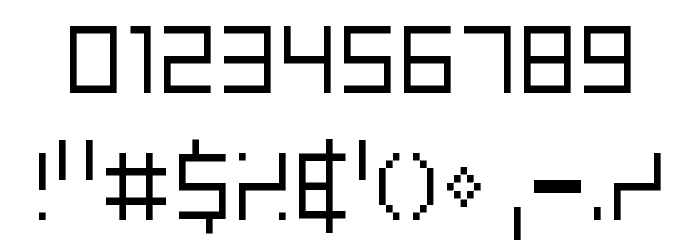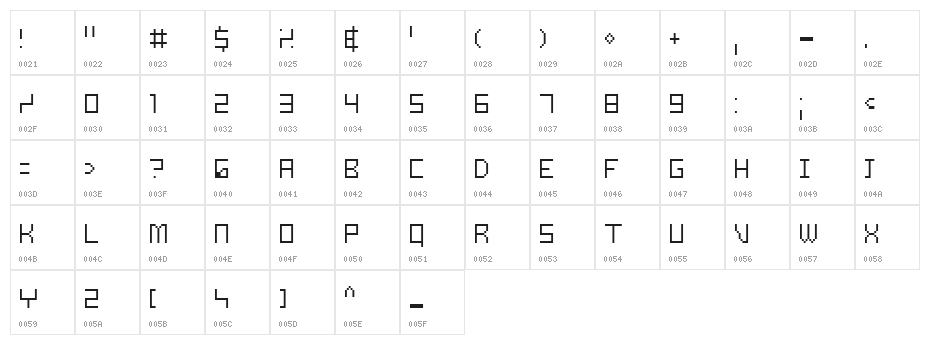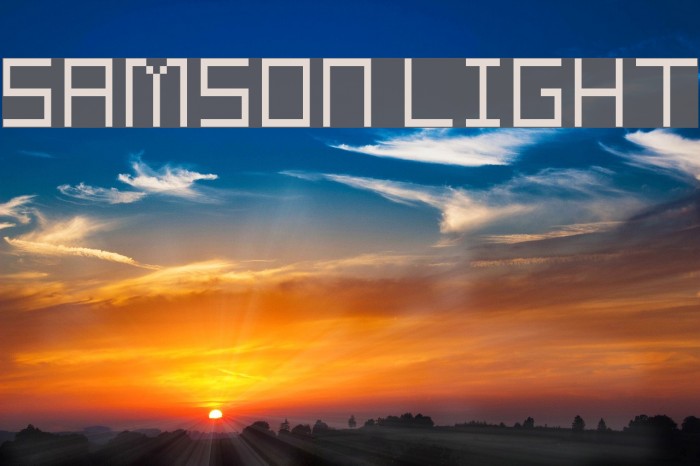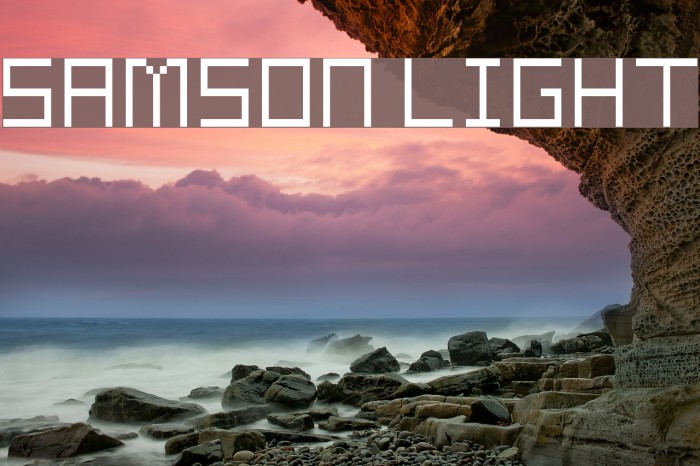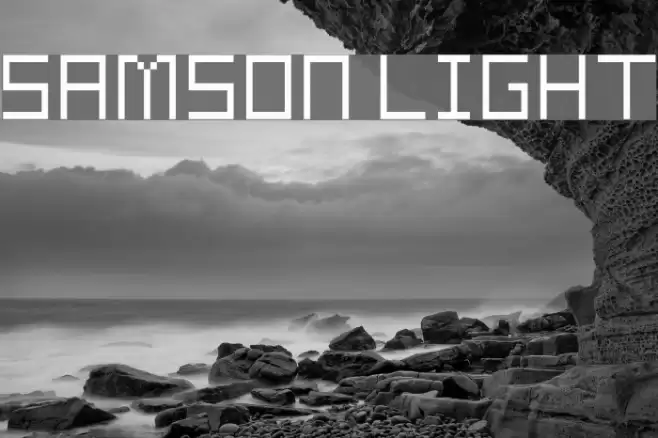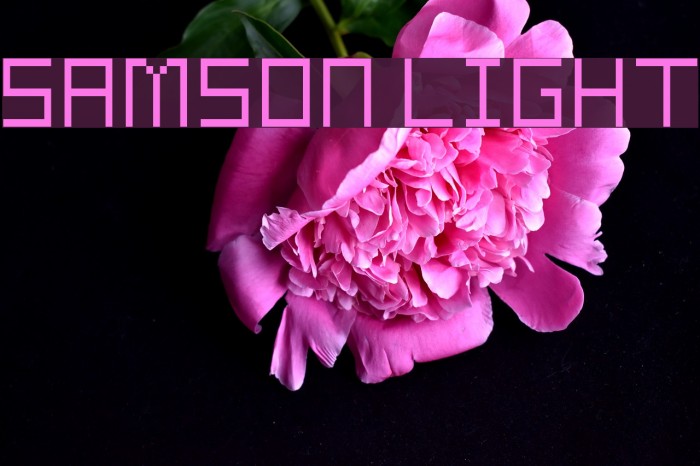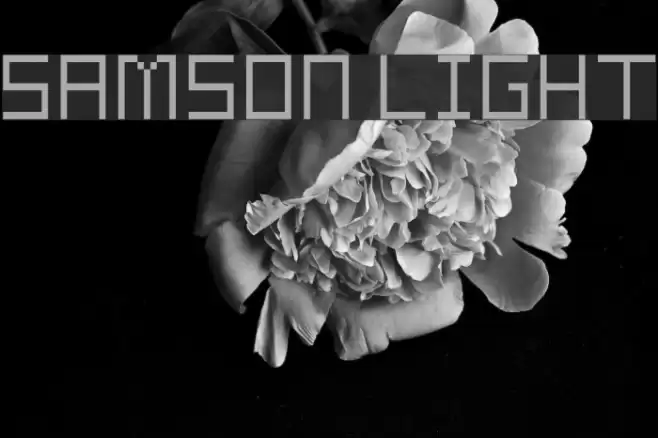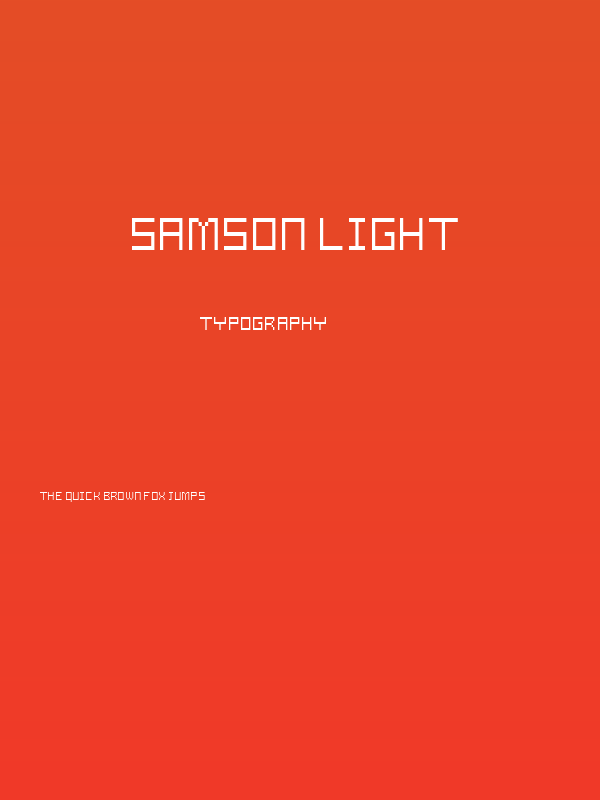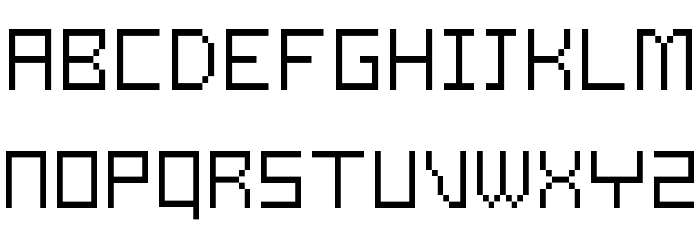
Samson Light Font
Samson Light Description
This font features a pixelated, grid-like design reminiscent of early digital displays and retro video games. Each character is constructed with a uniform stroke width, giving it a monospaced appearance. The geometric shapes are precise and angular, creating a mechanical and structured look. The font maintains a consistent height across all characters, contributing to its orderly and clean aesthetic. Its simplicity and clarity make it highly legible, even at smaller sizes. The font's design is both nostalgic and modern, capturing the essence of digital minimalism.